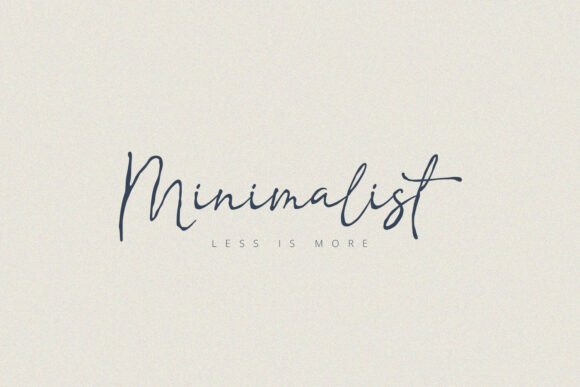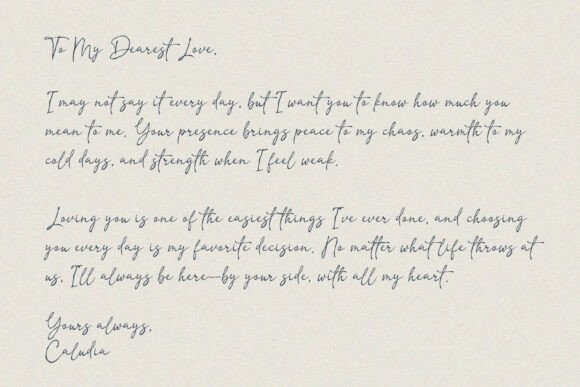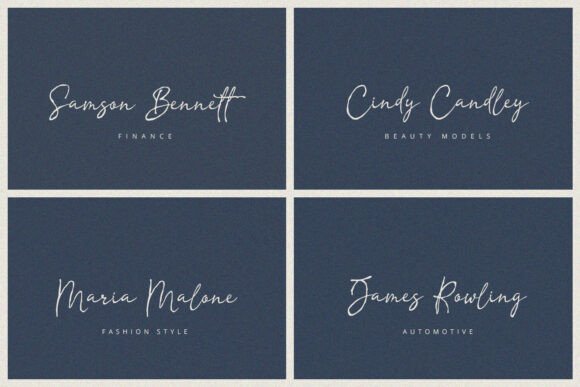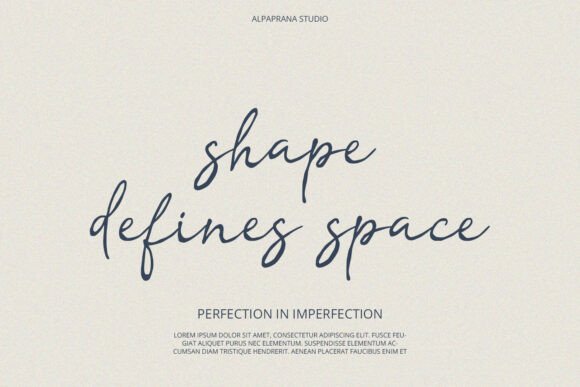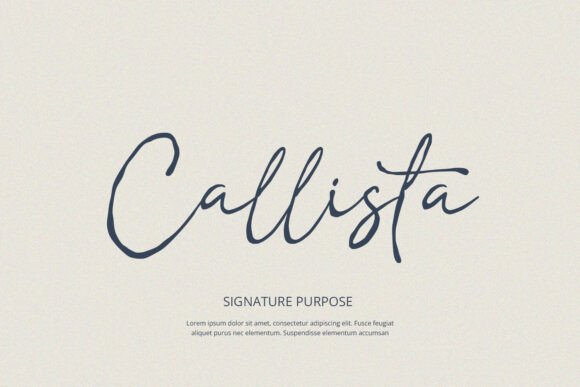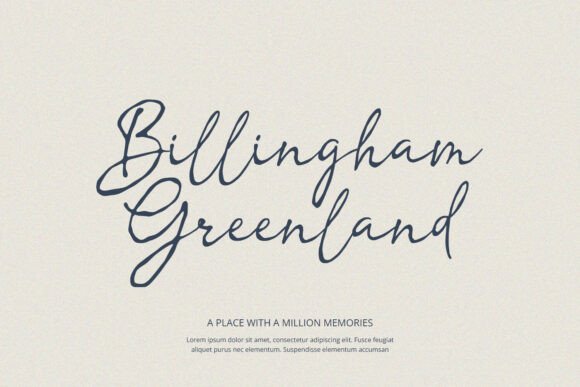
Bearish Font: Elevate Your Designs with Chic and Classic Handwritten Script
In the world of typography, fonts play a crucial role in conveying the tone and personality of a design. For designers and crafters looking for a stylish and sophisticated touch, Bearish Font is an excellent choice. This handwritten script font boasts a chic and classic feel, making it perfect for a wide range of design projects.
What is Bearish Font?
Bearish Font is a beautiful, handwritten script font that exudes elegance and refinement. Its unique, cursive style is characterized by flowing lines, subtle variations in line width, and a distinctive charm that sets it apart from more traditional fonts. Whether you’re working on a magazine, packaging, poster, or any other design project, Bearish Font is sure to add a touch of sophistication and glamour.
Key Features of Bearish Font
- Handwritten Script Style: Bearish Font features a beautiful, handwritten script style that adds a personal touch to any design.
- Chic and Classic Feel: The font’s unique style is both chic and classic, making it perfect for designers looking for a sophisticated look.
- Highly Versatile: Bearish Font can be used for a wide range of design projects, including magazines, packaging, posters, shopping bags, t-shirts, book covers, photography, and more.
- Easy to Read: Despite its elegant style, Bearish Font is highly legible, making it perfect for use in both digital and print designs.
Use Cases for Bearish Font
Bearish Font is an incredibly versatile font that can be used for a wide range of design projects. Here are some examples of how you can use Bearish Font to elevate your designs:
- Magazines and Editorials: Add a touch of elegance to your magazine or editorial design with Bearish Font.
- Packaging Design: Use Bearish Font to create eye-catching packaging designs that stand out on store shelves.
- Posters and Flyers: Create stunning posters and flyers with Bearish Font that grab attention and convey your message.
- Shopping Bags and Branding: Use Bearish Font to create stylish shopping bags and branding materials that reflect your brand’s personality.
- T-Shirts and Apparel: Design unique and stylish t-shirts and apparel with Bearish Font that make a statement.
- Book Covers and Publishing: Use Bearish Font to create eye-catching book covers and publishing materials that stand out in a crowded market.
- Photography and Events: Add a touch of elegance to your photography and event designs with Bearish Font.
Why Choose Bearish Font?
With so many fonts available, why choose Bearish Font? Here are just a few reasons why Bearish Font is an excellent choice for designers and crafters:
- Unique Style: Bearish Font features a unique, handwritten script style that sets it apart from more traditional fonts.
- Highly Versatile: The font can be used for a wide range of design projects, making it a great addition to any designer’s toolkit.
- Elegant and Sophisticated: Bearish Font adds a touch of elegance and sophistication to any design, making it perfect for designers looking for a stylish look.
In conclusion, Bearish Font is a beautiful, handwritten script font that offers a chic and classic feel. Its unique style, versatility, and elegance make it perfect for a wide range of design projects, from magazines and packaging to posters and apparel. Whether you’re a designer or crafter, Bearish Font is an excellent choice for anyone looking to add a touch of sophistication and glamour to their designs.